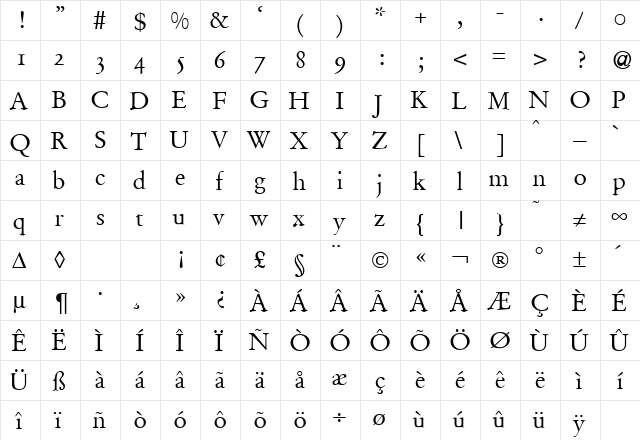
GaramondOriginalOsf Regular
Design Context for GaramondOriginalOsf Typeface
GaramondOriginalOsf is a composed and adaptable typeface that performs quietly and consistently across a wide range of design contexts.